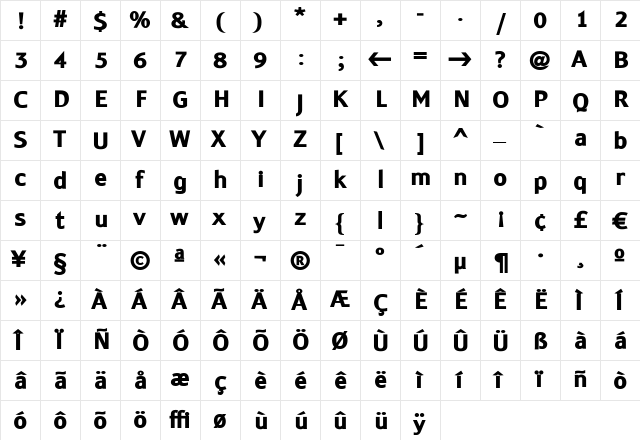
Monem ExtraBold Regular Font Preview
Monem ExtraBold Regular
Monem ExtraBold Regular Font Details
Design Context for Monem ExtraBold Typeface
Monem ExtraBold offers clean, dependable letterforms without strong stylistic allegiance, making it a practical choice for designers who need flexibility. The heavy weight commands attention and anchors typographic hierarchies.